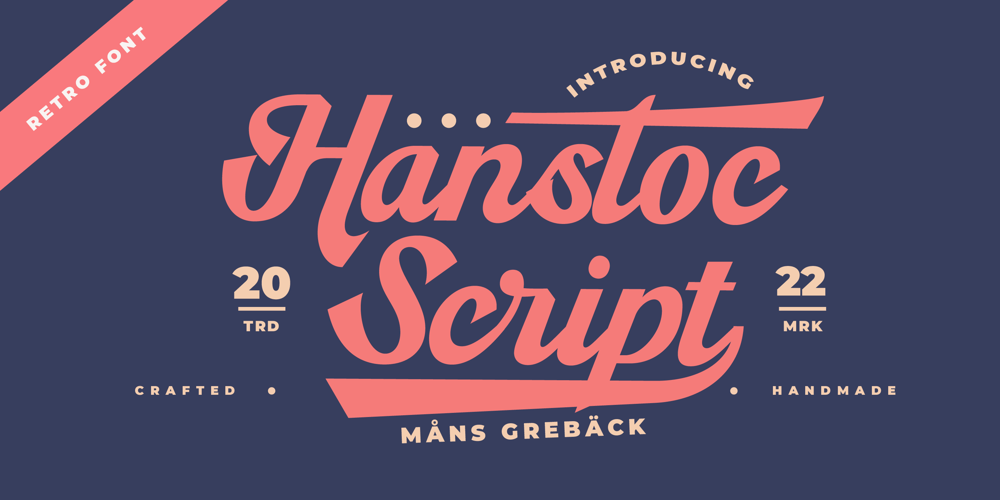
Hanstoc Script Font Family was designed by Måns Grebäck and published by Mans Greback. Hanstoc Script contains 4 styles and family package options. Hanstoc Script is a formal calligraphy typeface. A sporty cursive, this retro lettering works as a cool team logotype or a vintage headline. Drawn and created by Mans Greback in 2022, it has a fresh style and a bold personality.Use underscore _ to make a swash. Example: Baseball_Use multiple underscores to make different lengths. Example: Beauty____The Hanstoc Script family consists of four professional styles:Regular, Bold, Italic, Italic Bold; complimenting each other for greater design opportunities.The font is built with advanced OpenType functionality and has a guaranteed top-notch quality, containing stylistic and contextual alternates, ligatures and more features; all to give you full control and customizability. It has extensive lingual support, covering all Latin-based languages, from Northern Europe to South Africa, from America to South-East Asia. It contains all characters and symbols you’ll ever need, including all punctuation and numbers.